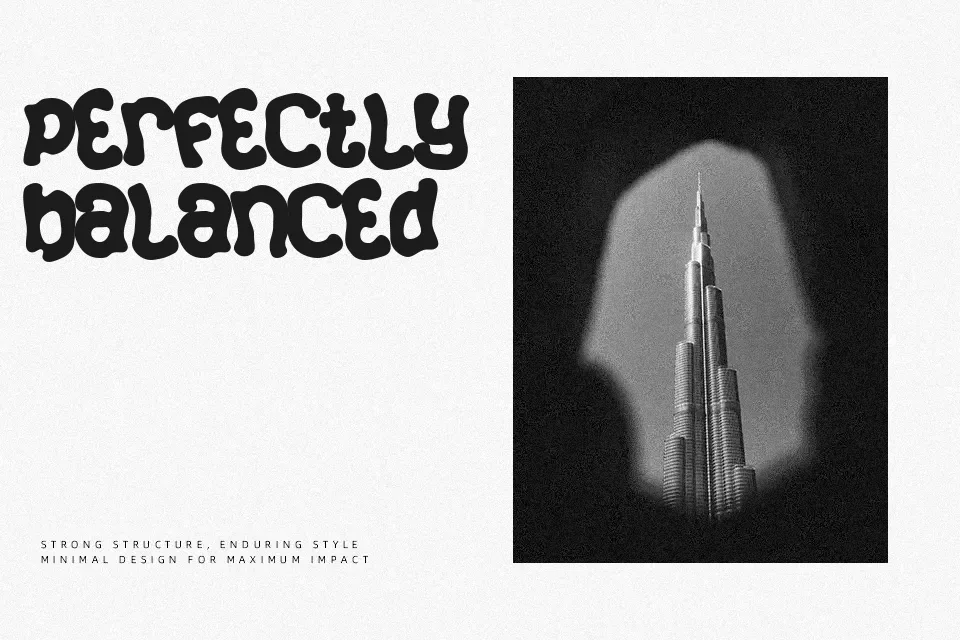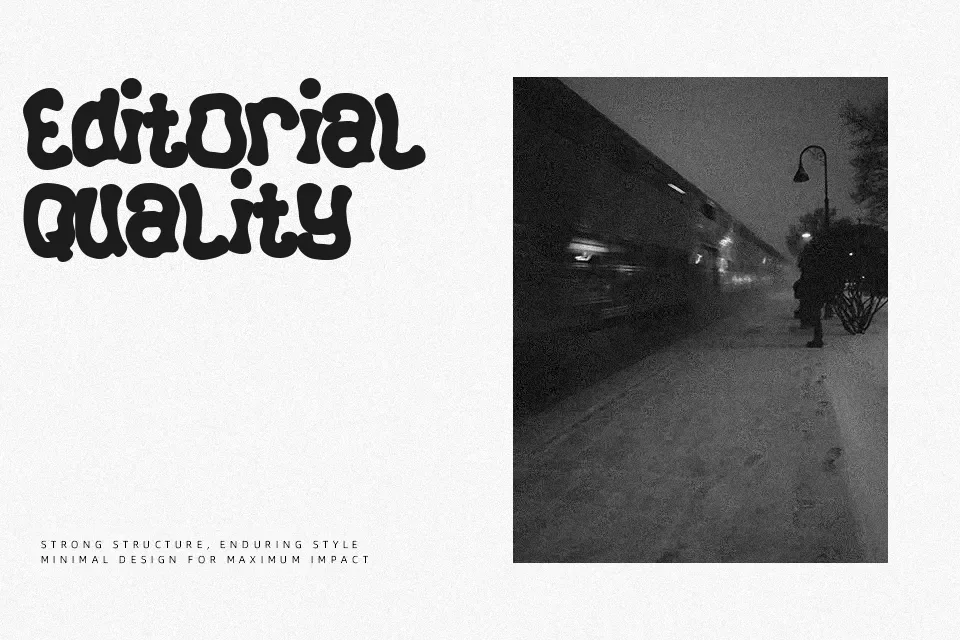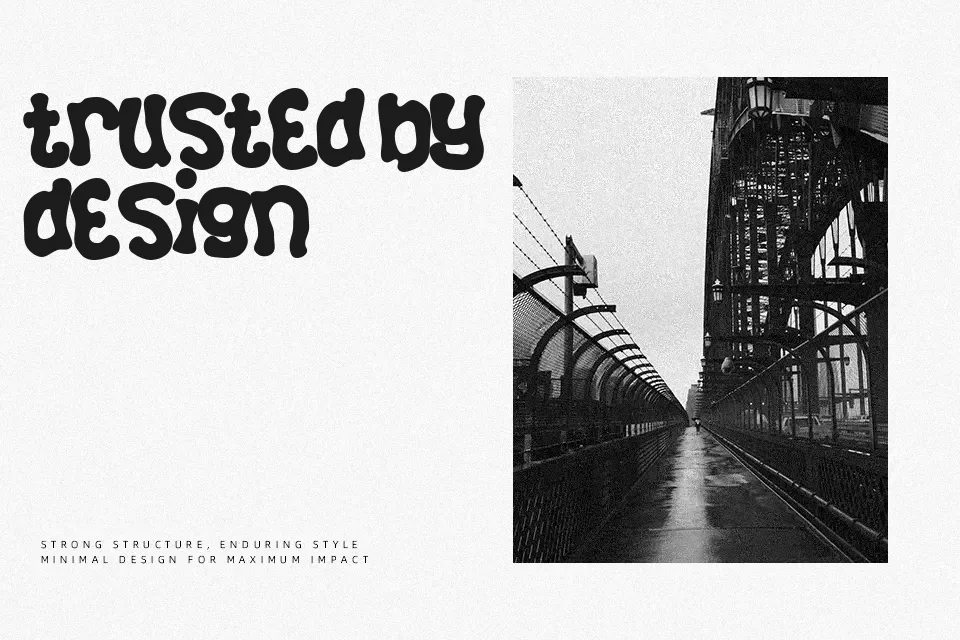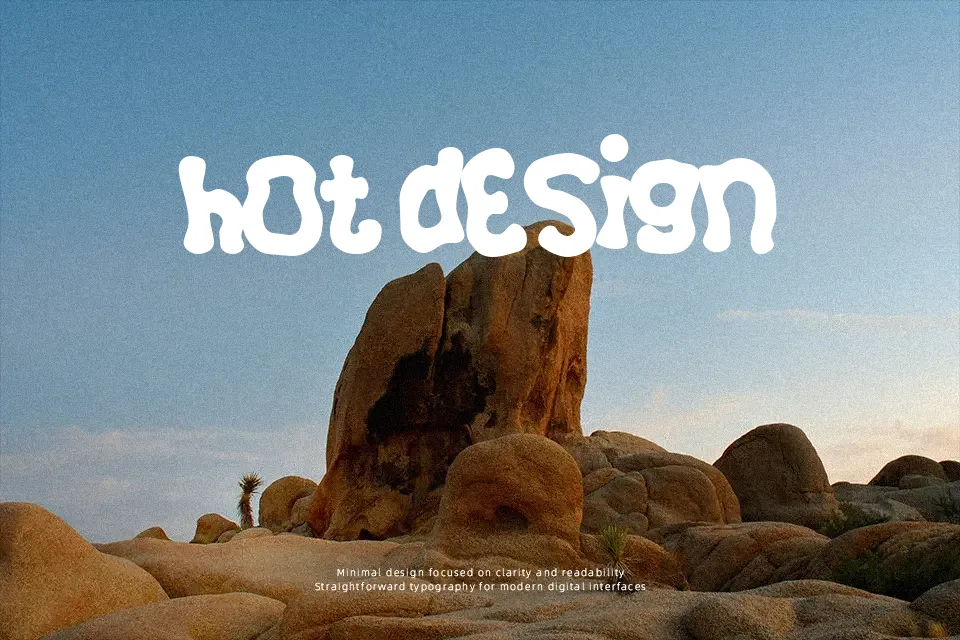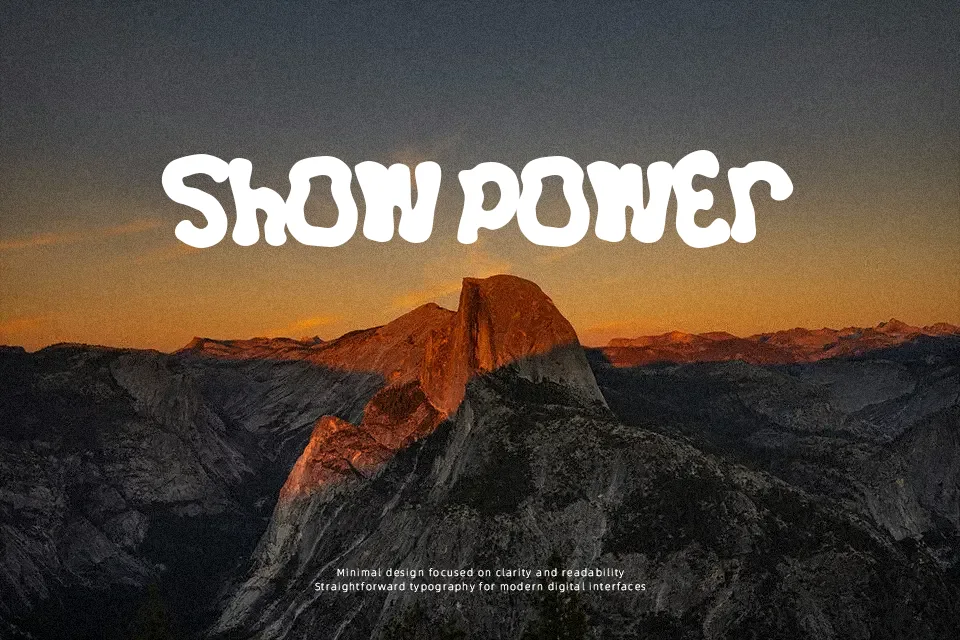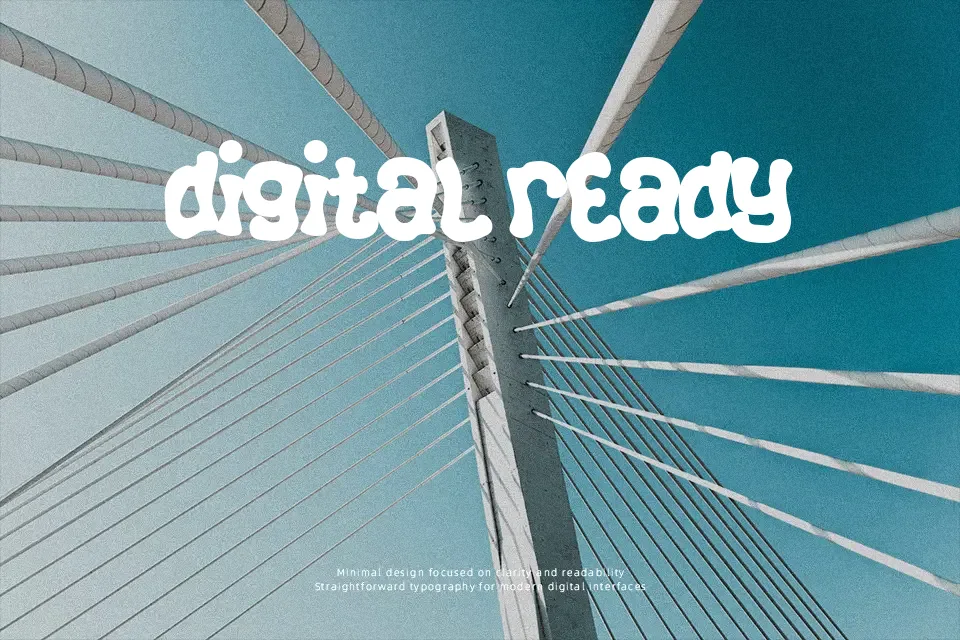
Squizzlie Font
Squizzlie Font features dynamic, undulating strokes with an intentionally wobbly outline that evokes traditional cartoon animation. The letterforms exhibit irregular stroke widths and relaxed character spacing, creating a buoyant visual rhythm across short phrases. Proportions vary slightly between individual glyphs, reinforcing a spontaneous and handcrafted appearance. In practical application, the typeface delivers maximum impact when applied to video game logos, toy packaging, and party banners at large display sizes. However, the irregular contours and casual alignment reduce legibility in extended body paragraphs or compact user interfaces. The bold, bouncy weight ensures prominent visibility in display contexts while remaining unsuited for formal editorial documentation.
Best For: children’s book covers,animated title cards,toy packaging,comic book headlines
Not Ideal For: long paragraph text,corporate annual reports,mobile user interface labels,legal contracts
Perfect for gaming, headline, and kids, with a bubble and cartoon style.